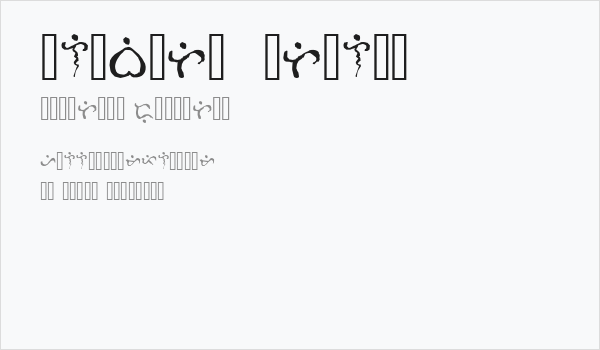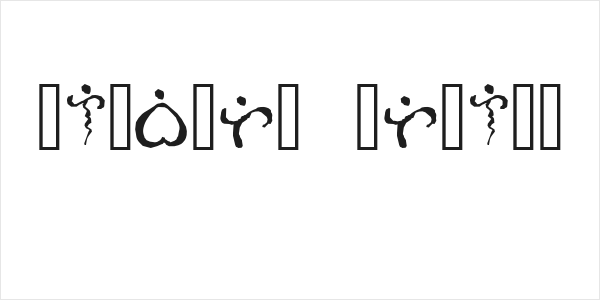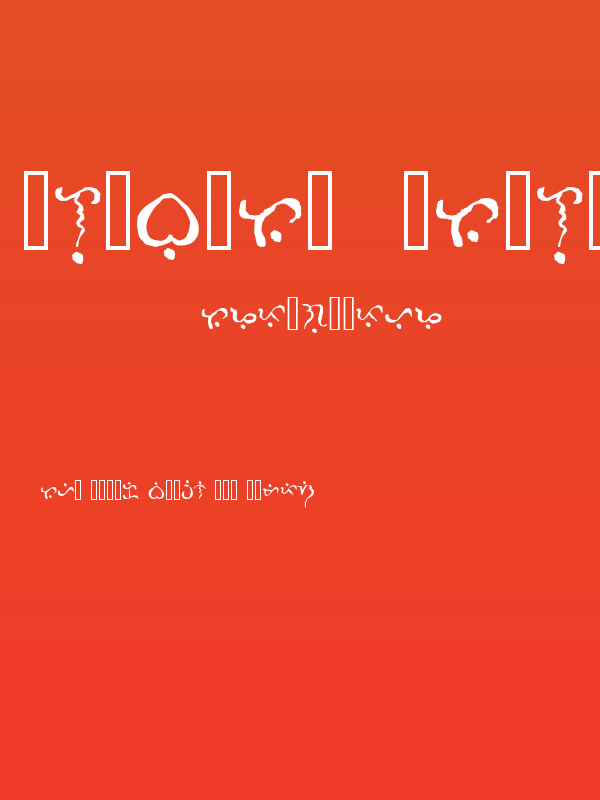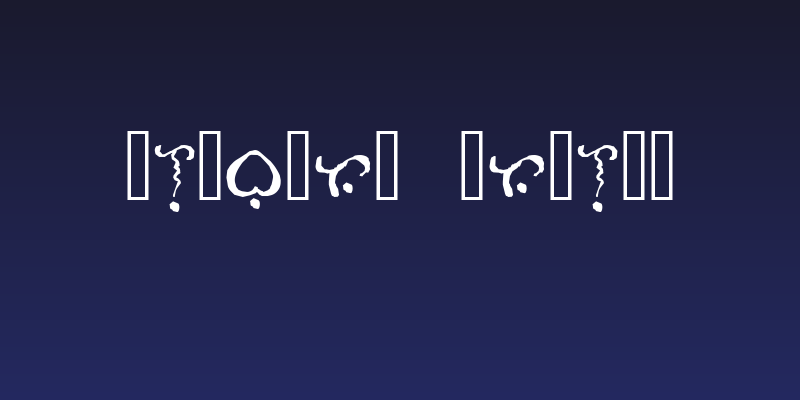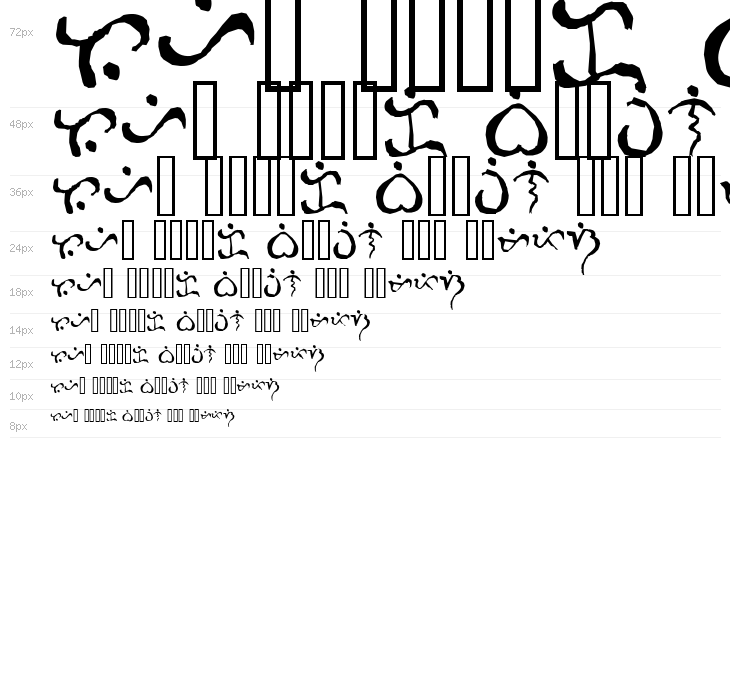
Alibata Italic Font
Alibata Italic Description
This font is a stylized representation of the ancient Baybayin script, known for its elegant curves and flowing lines. Each character is crafted with a distinct italic slant, adding a dynamic and modern twist to the traditional script. The strokes are smooth and continuous, creating a sense of movement and fluidity. The characters are well-spaced, ensuring readability while maintaining the script's intricate design. This font captures the essence of historical writing systems while adapting them for contemporary use, making it suitable for projects that aim to blend cultural heritage with modern aesthetics.
| Use Case | Logos, Artistic designs, Cultural projects |
| Proposed Projects | Ideal for cultural projects, educational materials, artistic designs, and branding that seeks to incorporate Filipino heritage. |